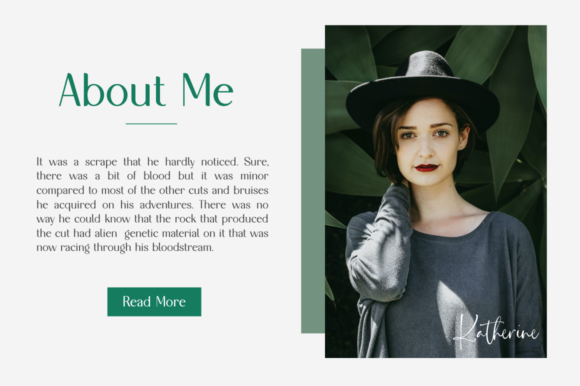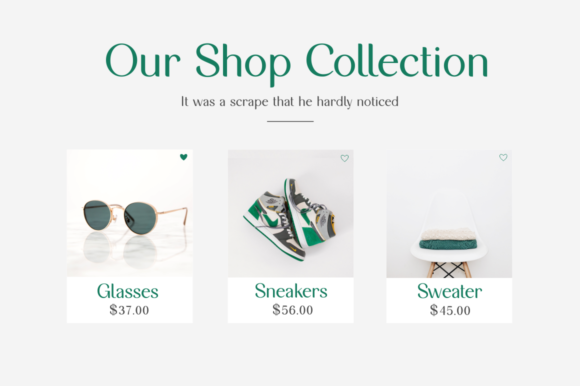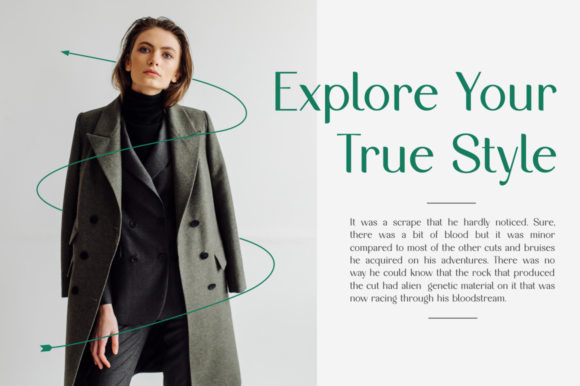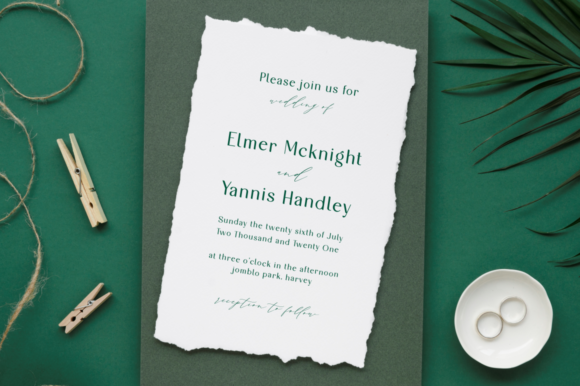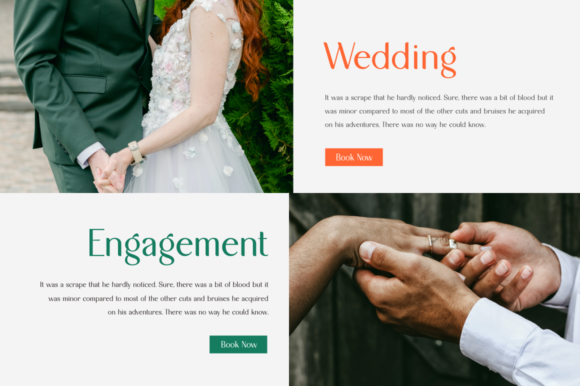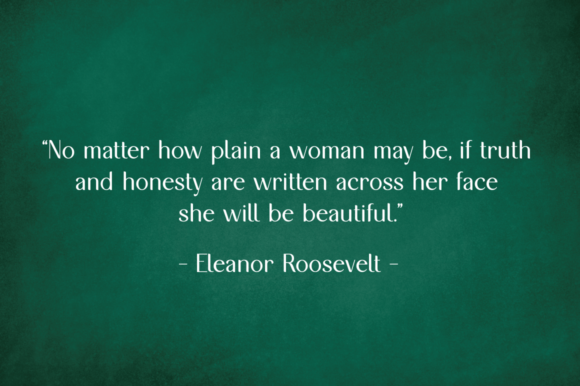
The Perfect Font for a Touch of Elegance
Have you ever been stuck in front of your computer, staring at a blank page, trying to find the perfect font to match your design’s personality? It’s a familiar feeling for many creatives, but what if we told you there’s a font that can elevate your designs and leave a lasting impression? Enter the Galgony Font, a sleek and sophisticated sans serif font that’s sure to add a touch of elegance to any project.
As a designer, you know the importance of choosing the right font to convey your message and capture your audience’s attention. That’s where the Galgony Font comes in – perfect for invitations, thank you cards, quotes, and logos, this font is a versatile tool that can add a customized touch to any design. Its clean lines and modern aesthetic make it a valuable addition to any designer’s toolkit.
Galgony Font Key Features
- Font Family: Galgony is a sans-serif typeface designed for digital use.
- Font Size: Offers a range of font sizes, from 8pt to 72pt, with optimal readability at 12pt.
- Resolution: Designed for use at high resolutions (up to 300 DPI) for crisp and clear display.
- Unique Characteristics: Galgony features a unique blend of geometric and organic elements, resulting in a clean and modern aesthetic.
Galgony Font Review
Galgony font is a visually striking and unique addition to any digital project. I love its ✨ eclectic feel, which is perfect for creative, artistic, or avant-garde designs. The font is a great choice for making a bold statement or adding a touch of whimsy to your project.
- Unique and playful design that adds character to digital projects
- Excellent for creative or artistic projects that require a bold, eye-catching font
- Variety of weights and styles to choose from, making it versatile and adaptable
However, I do have some reservations about Galgony font. Its ✨ quirky nature can also make it difficult to read in certain contexts, particularly in body text or for extended periods of time. The font is best used in moderation, as its unconventional design can be overwhelming if overused.
- May be difficult to read in certain contexts, such as body text or for extended periods of time
- Overuse can lead to visual fatigue and overwhelm
- Not suitable for formal or traditional projects where a more conservative font is required
Overall, I think Galgony font is a great choice for designers who want to add some personality and flair to their projects. However, it’s essential to use it judiciously and consider the context in which it will be used.
The Galgony Font is ideal for:
- Creating bold and eye-catching headings
- Adding a touch of elegance to your designs
- Creating a unique and memorable brand identity